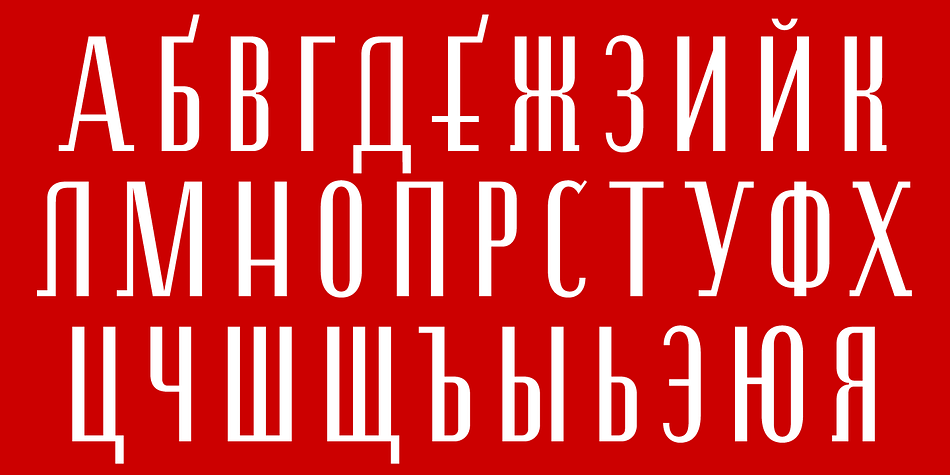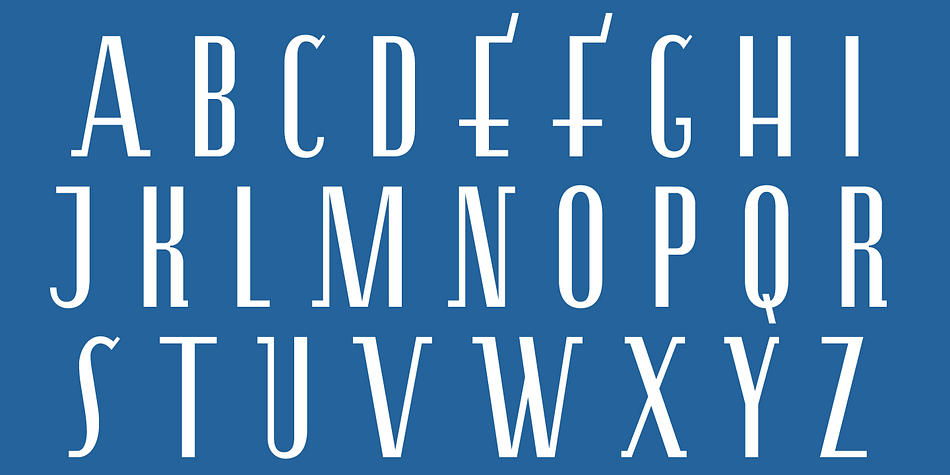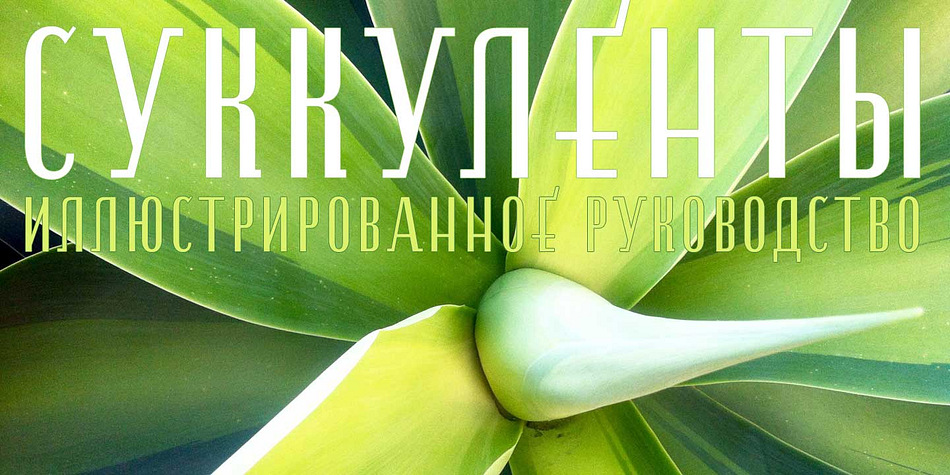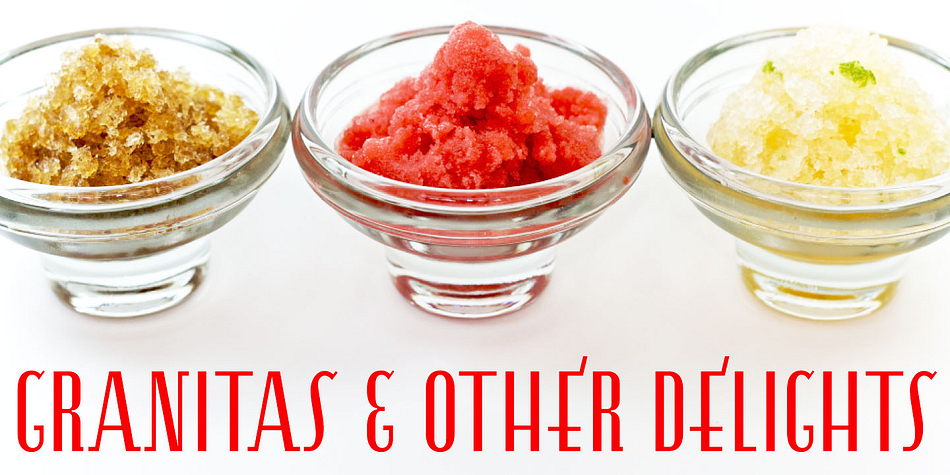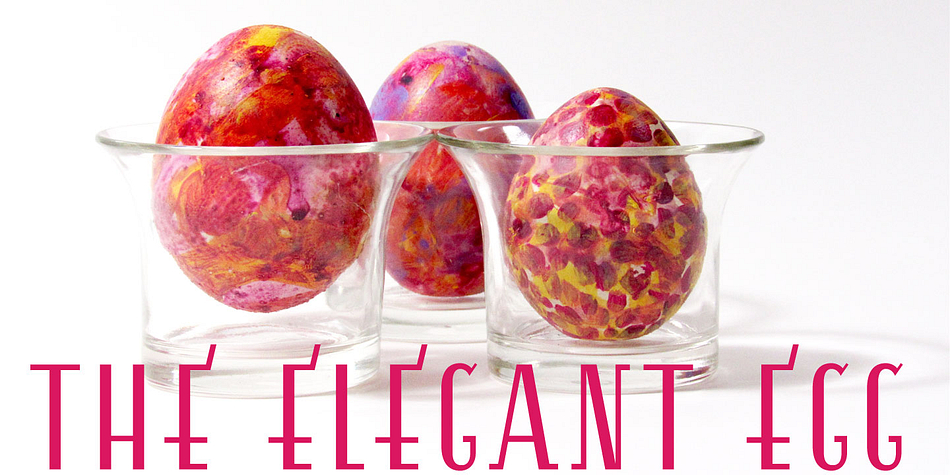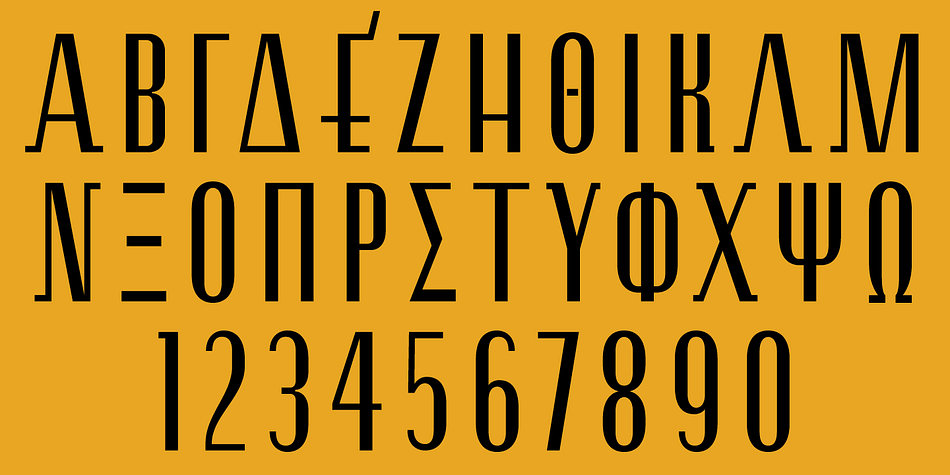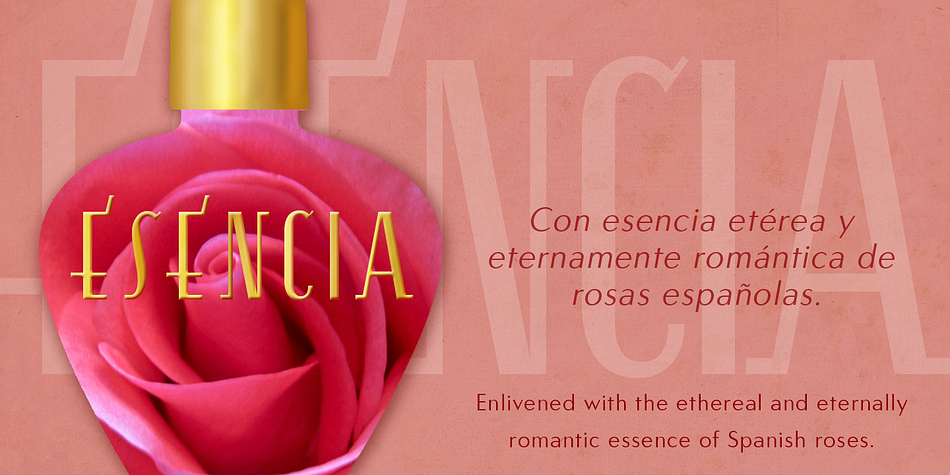
Esencia is a art deco font published by CastleType.
Esencia™, a CastleType original, was inspired by a Spanish stock certificate from 1941 with 11 beautiful art deco style letters for the words “PERFUMES y ESENCIAS”. Slender, elegant, with a Spanish flare. Uppercase only with numerals and punctuation. Supports most European languages that use the Latin, Greek, or Cyrilllic alphabets. Includes alternate B, D, E, F, K, P, R, and S.